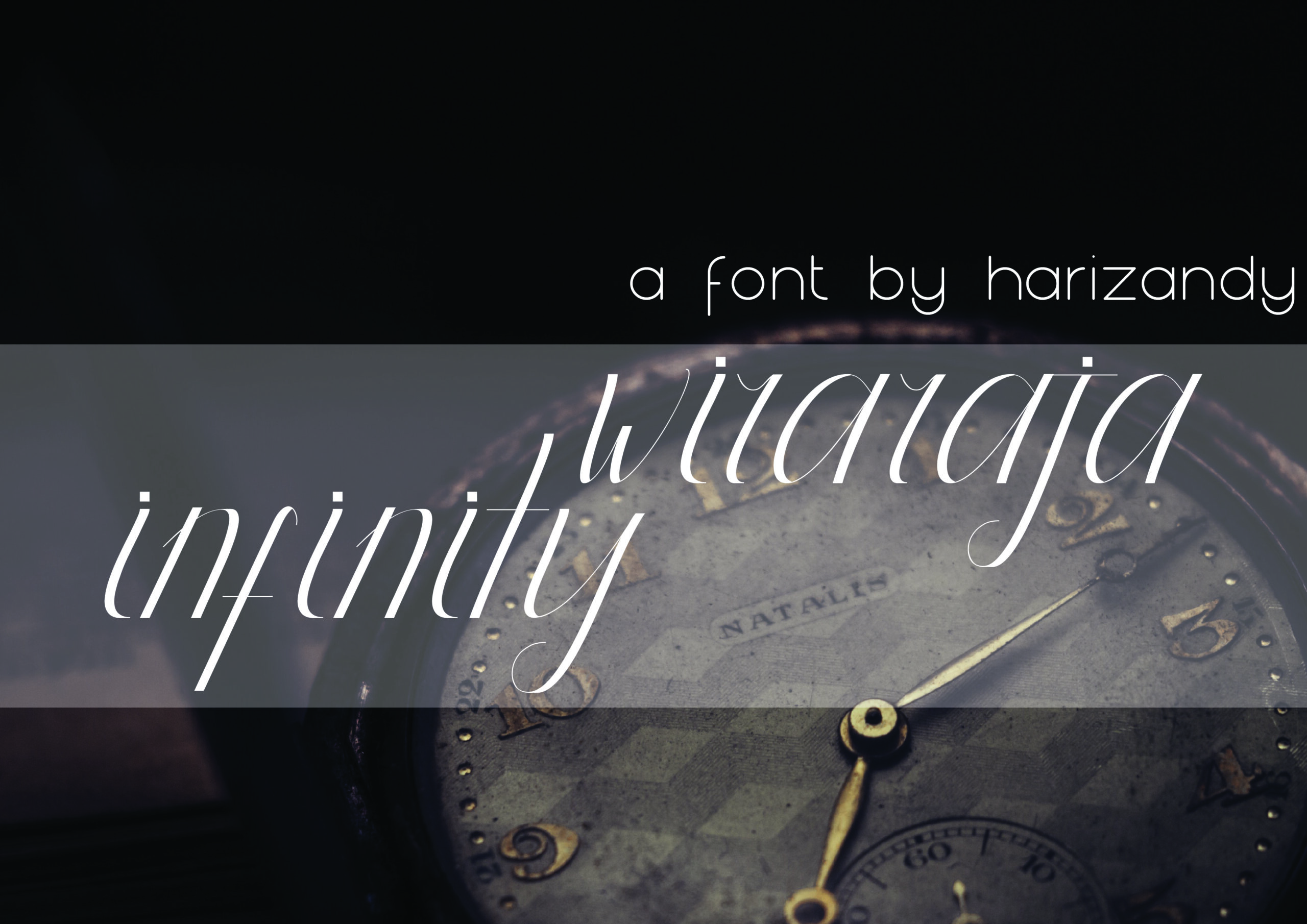
Infinity Wiraraja Font
About Infinity Wiraraja Font
Infinity Wiraraja is a simple sans serif font, perfect for headlines or other display purposes. This classical script is a great way to give your designs a highly charming and romantic appeal.